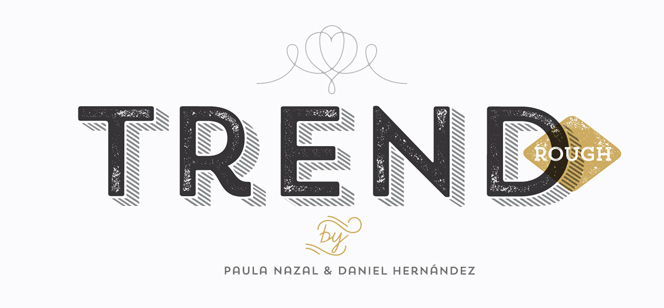
Trend Rough font
Trend Rough font family by Latinotype is a marvelous vintage typeface inheriting the character and originality of its bestselling predecessors – the Trend and Trend Hand Made fonts. As in their previous projects Paula Nazal Selaive and Daniel Hernández use five variants of Trend Sans & Serif plus their true italics and Ornaments. However, this time they have decided to surprise us with the new wonderful Ornaments Two, Words and Dingbats thus enhancing Trend Rough to the staggering 24 fonts.
The charming retro look of Trend Rough is a result of thorough study and research of the modern fashion tendencies. Its authors tried, and we could say succeeded, to capture the very essence of the fashion itself and embody it in their creation. As a result they offer us a font family that doesn’t need any additions and complements and is perfect for large visible overprints, heavy ink transfer, letterpress print and deep embossing.
As it was mentioned, Trend Rough is designed by the young and very ambitious Chilean graphic designers Paula Nazal Selaive and Daniel Hernández. Despite their young age they have very serious background – Paula studied design at Universidad Mayor in Santiago de Chile, Universidad de Palermo, Buenos Aires and Universidad de Buenos Aires and as for Daniel – it is enough to say that he is, together with Miguel Hernández & Luciano Vergara, a co-founder of Latinotype foundry. Follow the links and enjoy more of their greatest work: Showcase font, Dulce Pro font, Texta font, Grota Sans font, Andes Rounded font, Newslab font, Magallanes Condensed font.